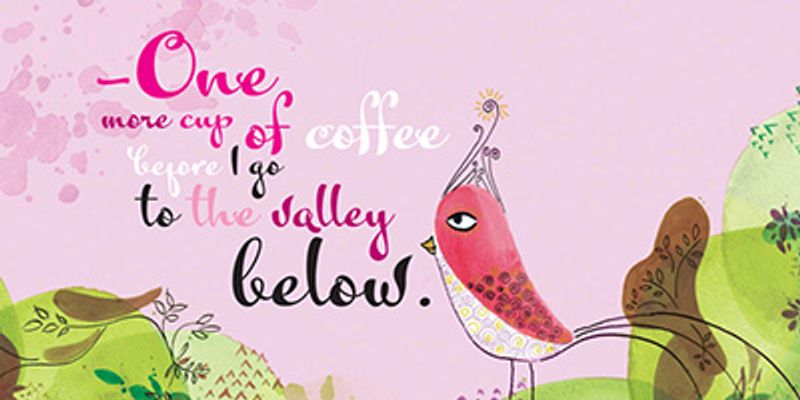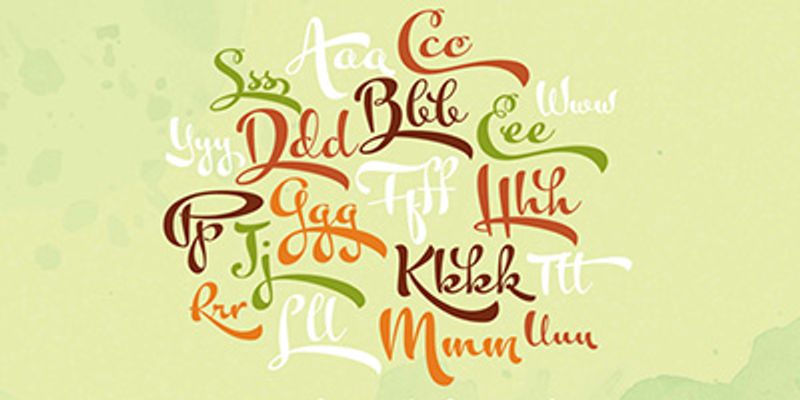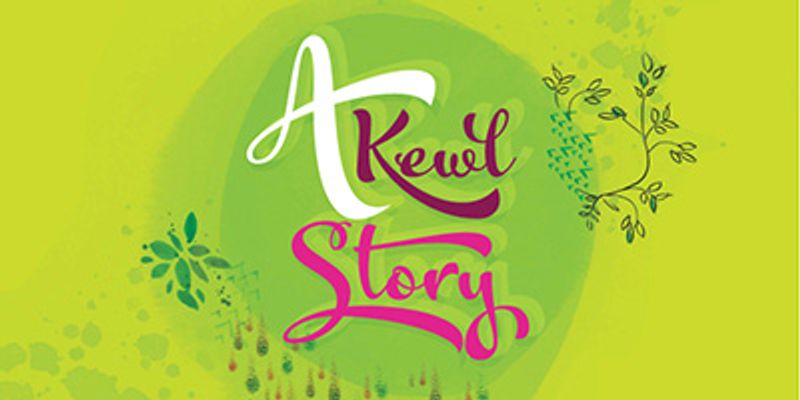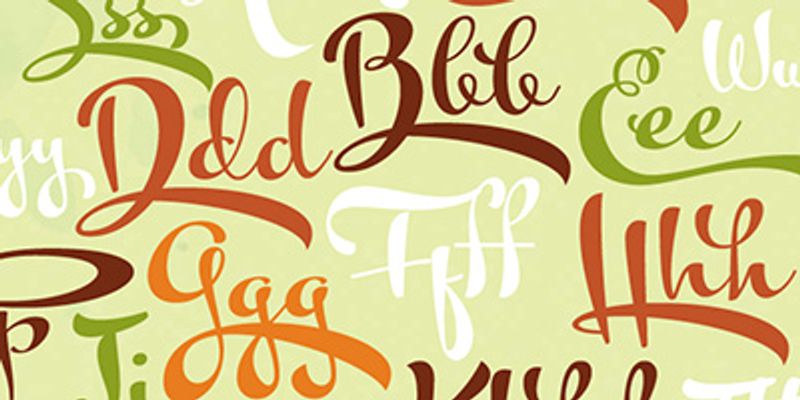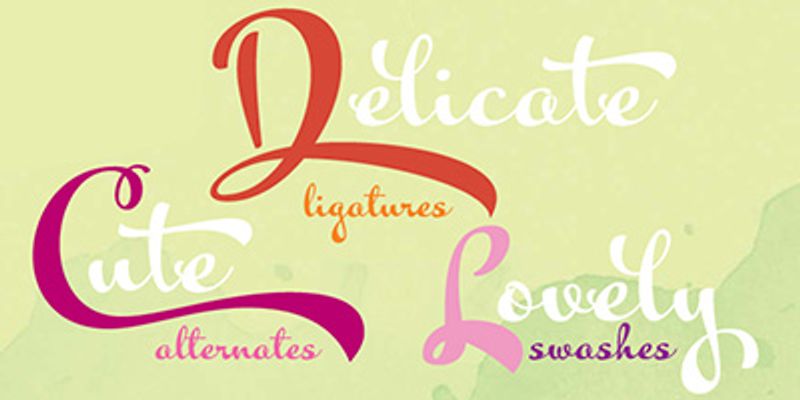
Kewl is the result of being caught in the afterimage of one design project while conceptualizing another one. Just before finishing the final tests on Mrs Blackfort, the first of what became a long series of Charles Bluemlein fonts, some of the letters began morphing differently in my mind. The idea was to go on the heavier and more playful side, but with a South American sign letterer’s twist, rather than just good handwriting. I did some sketching, took some notes, then got busy with other projects. Some of that stuff eventually seeped into Candy Script and, to a lesser extent, the Whomp font. But it was only a matter of time before I got back to the original concept and finished it.